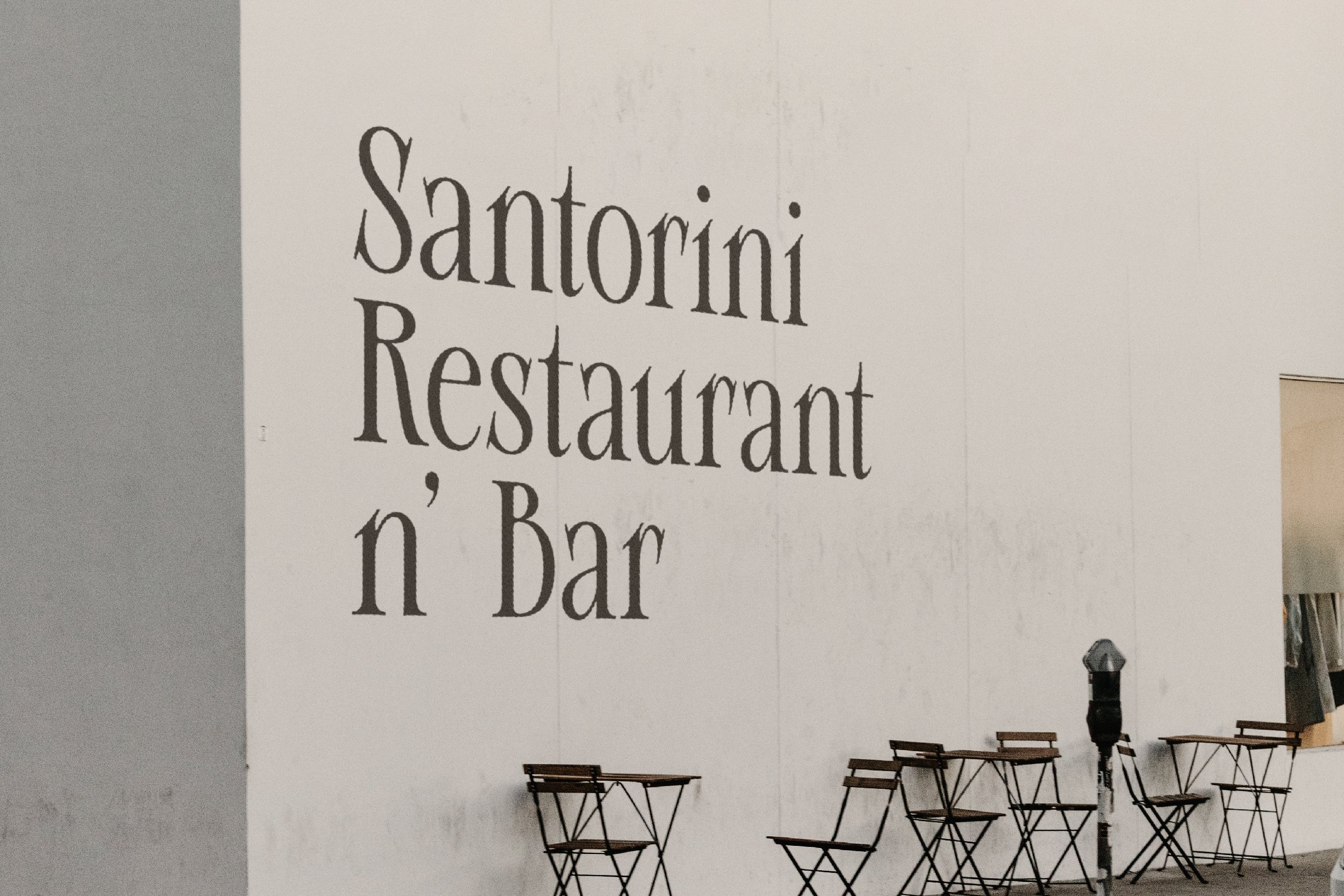
Philosykos - Fancy Classic Serif
Looking to add a touch of refinement to your designs? Look no further than Philosykos. With its carefully crafted details and more than 80 ligature choices, Philosykos is the perfect choice for adding a cultured, sophisticated look to your artwork.
This typeface comes in four styles - Regular, Italic, Bold, and Bold Italic - making it versatile enough for a wide range of designs. Whether you're creating a logo, designing packaging, or working on a book cover, Philosykos will help elevate your work to the next level.
So if you're looking for a typeface that exudes elegance and style, look no further than Philosykos. Try it out today and see the difference for yourself.
Looking to add a touch of refinement to your designs? Look no further than Philosykos. With its carefully crafted details and more than 80 ligature choices, Philosykos is the perfect choice for adding a cultured, sophisticated look to your artwork.
This typeface comes in four styles - Regular, Italic, Bold, and Bold Italic - making it versatile enough for a wide range of designs. Whether you're creating a logo, designing packaging, or working on a book cover, Philosykos will help elevate your work to the next level.
So if you're looking for a typeface that exudes elegance and style, look no further than Philosykos. Try it out today and see the difference for yourself.
Ligatures